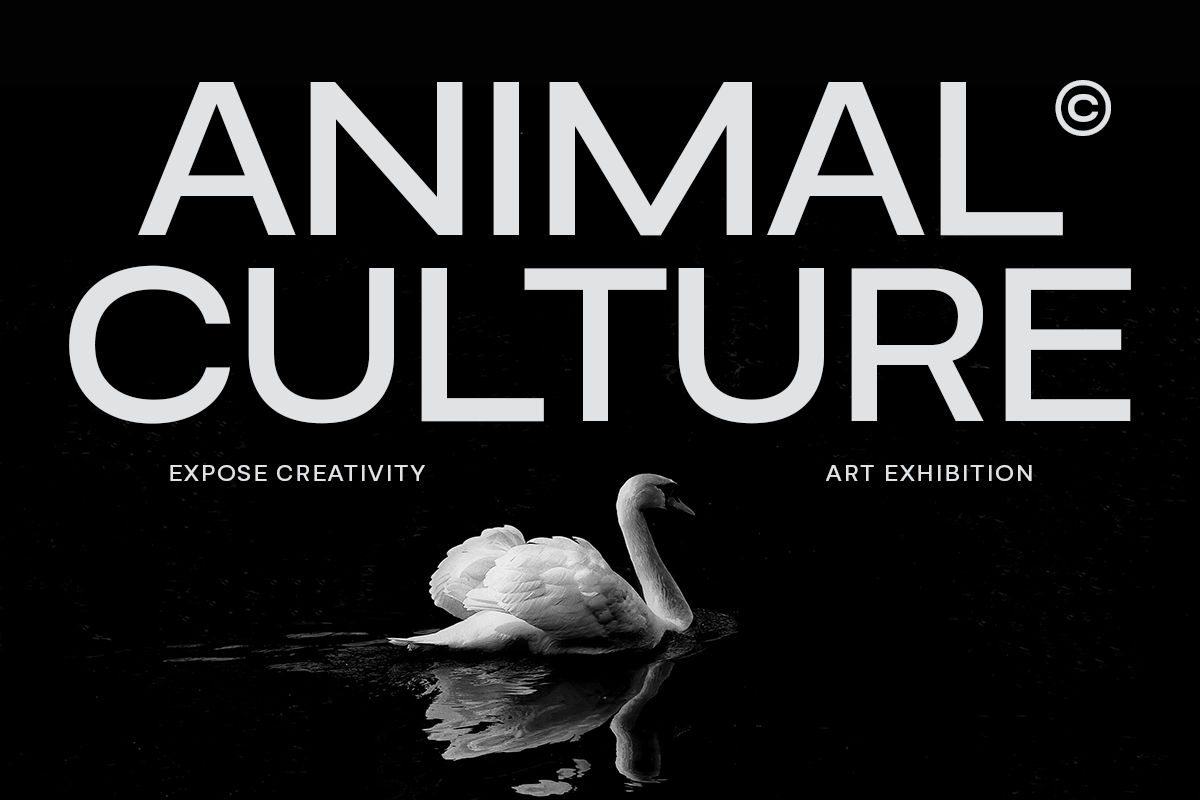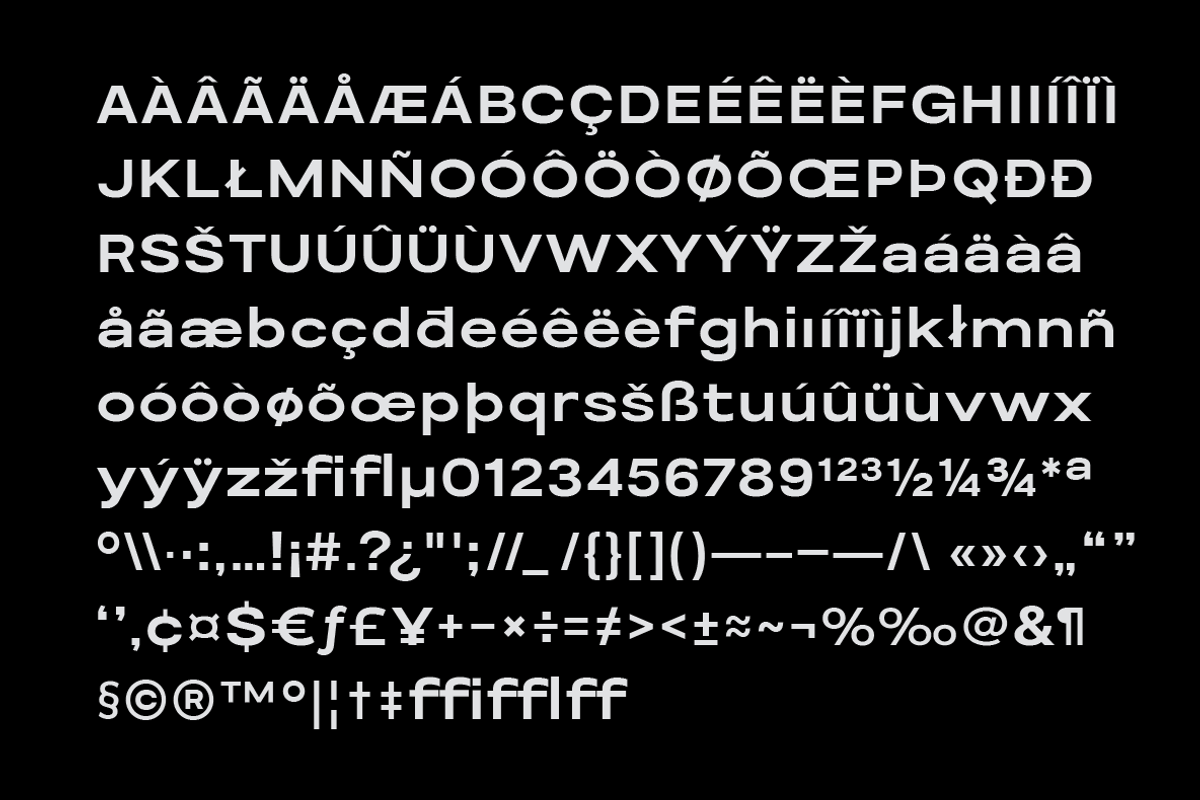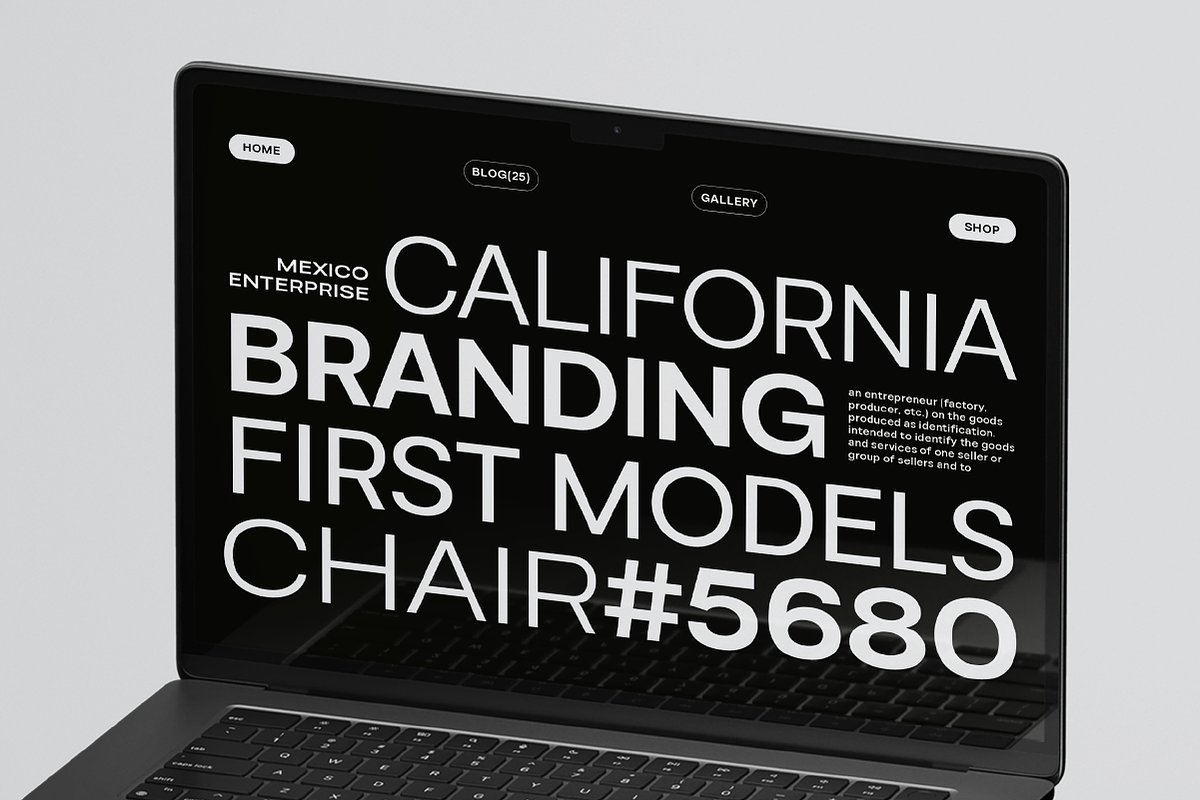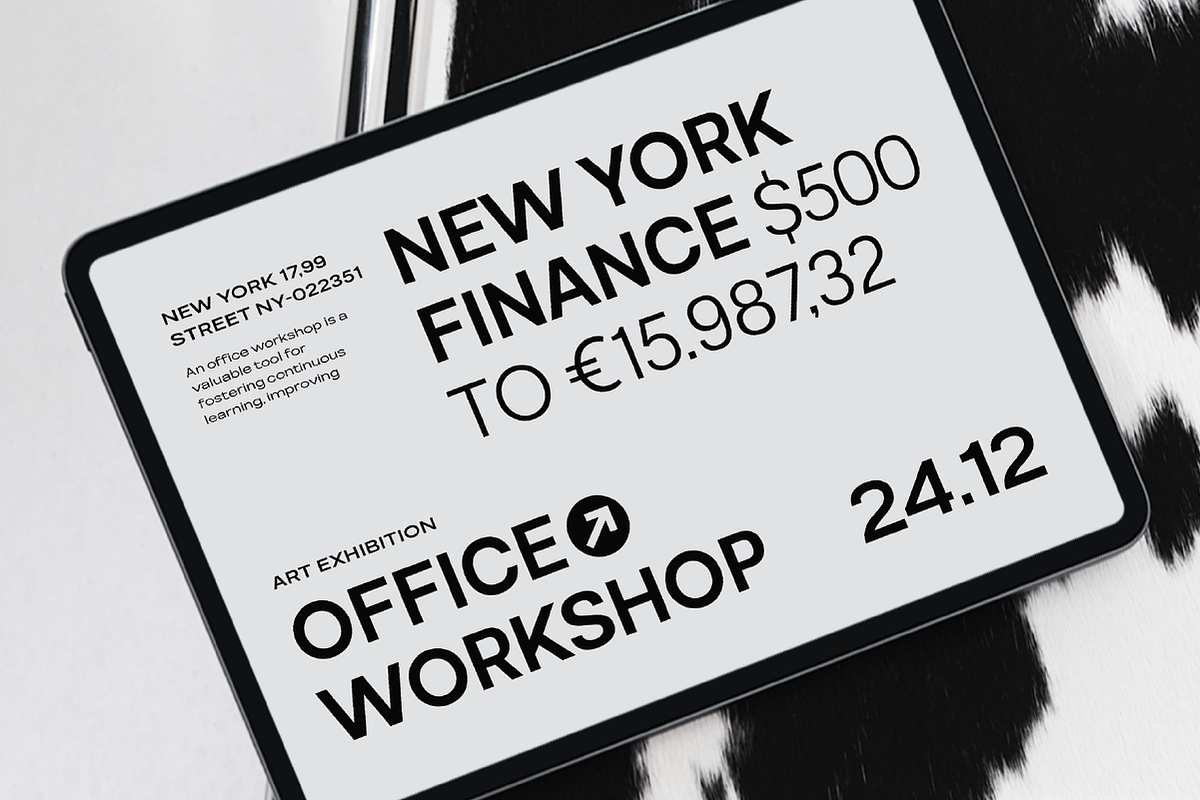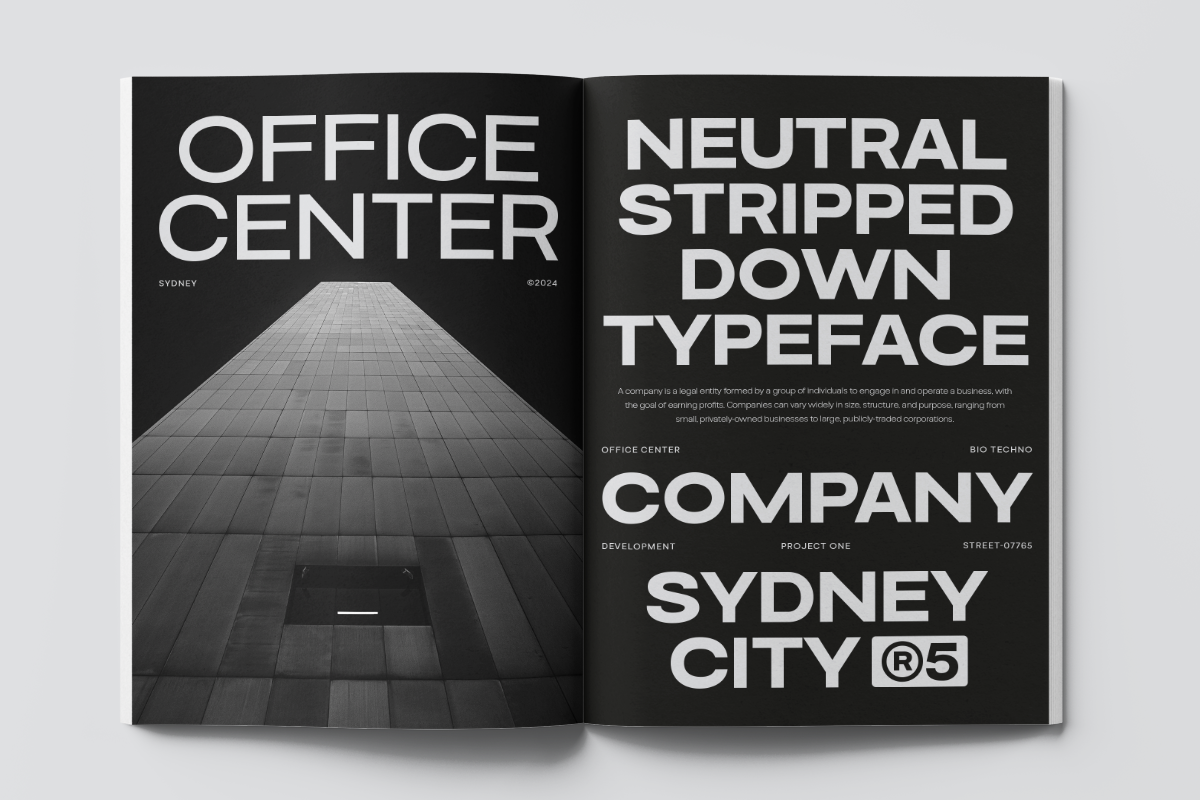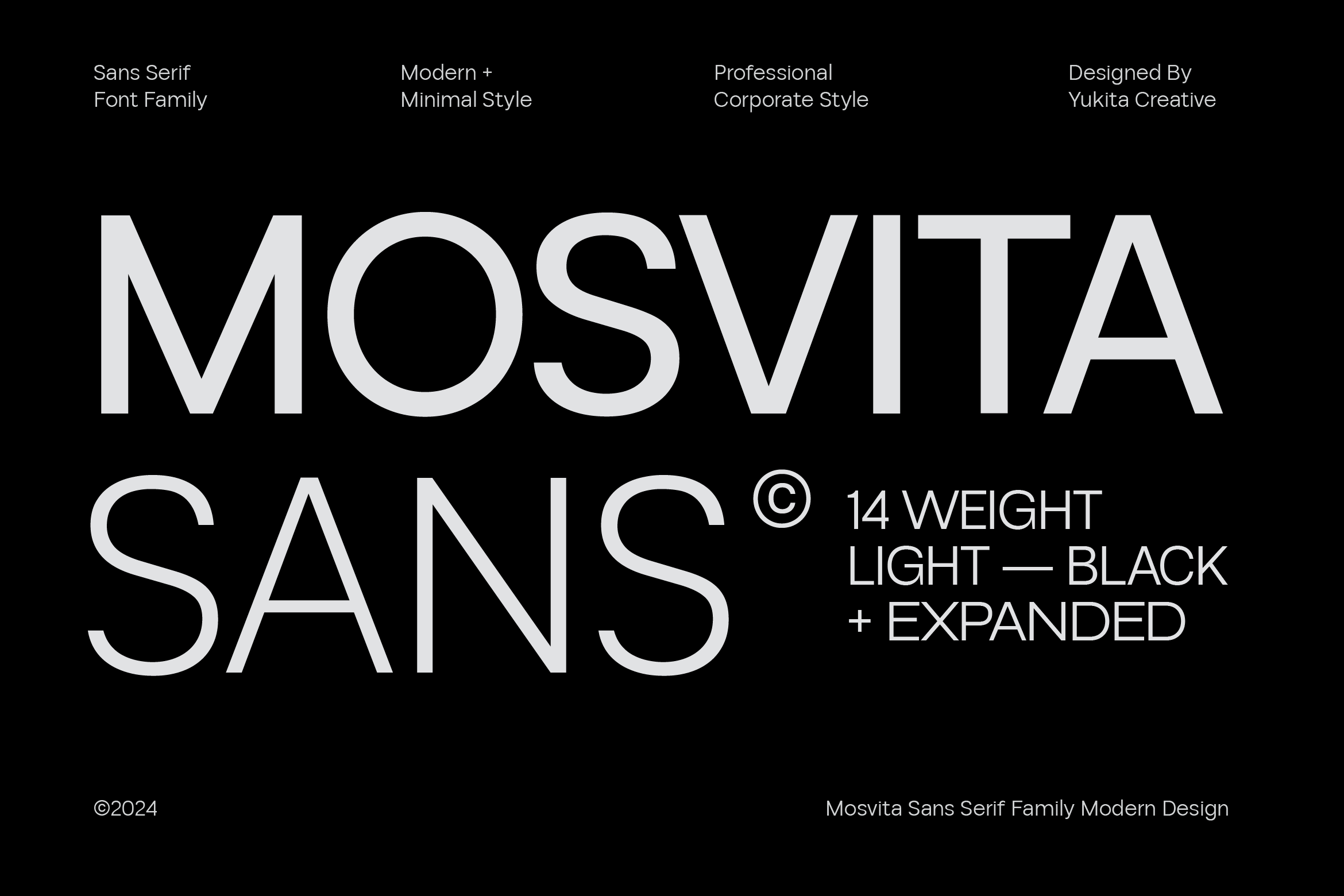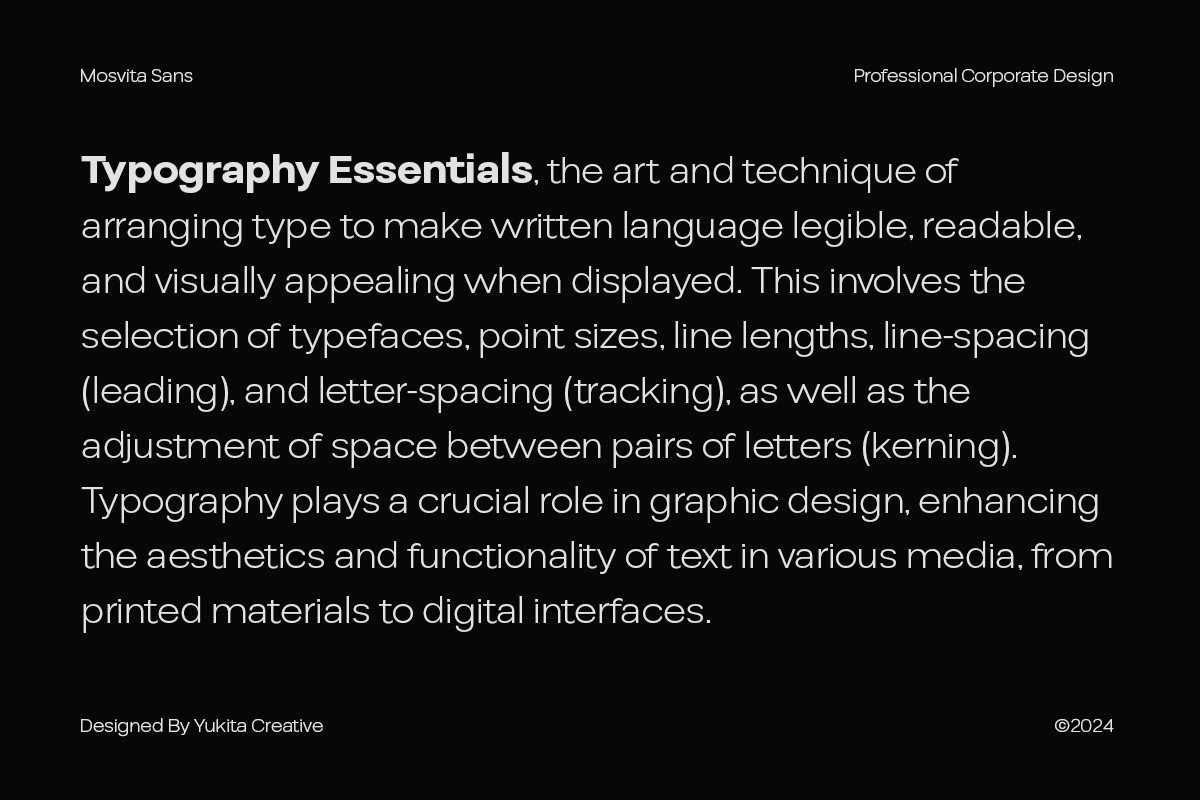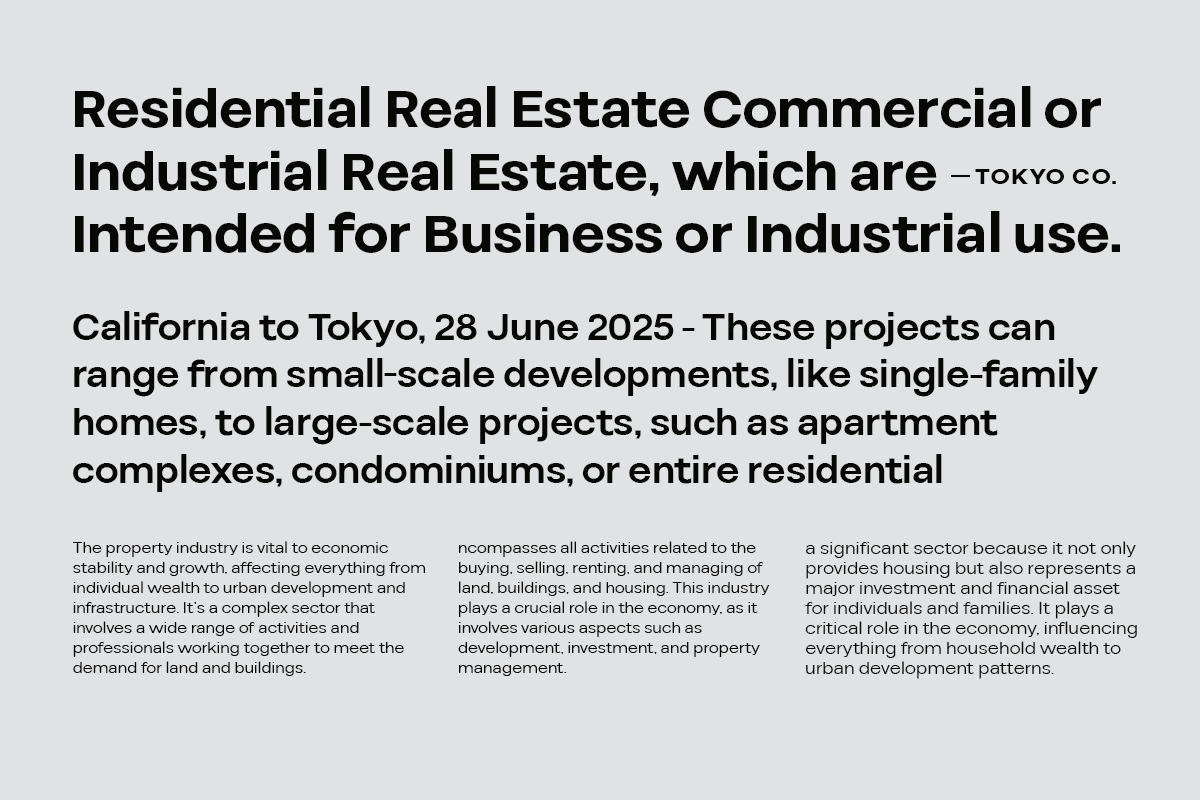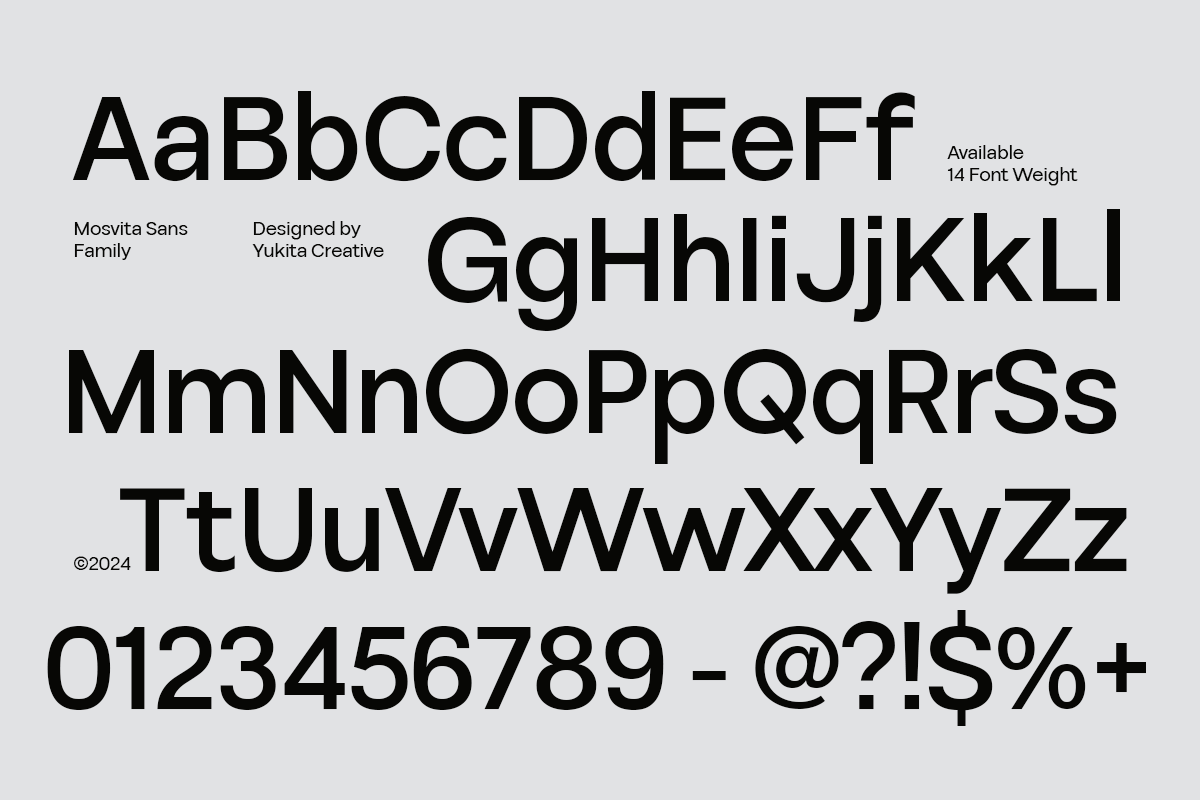
Mosvita Sans Serif Family Font
Mosvita Sans Serif Modern is a font designed with contemporary beauty and readability as top priorities. It offers incredible flexibility with 14 styles, consisting of 7 normal widths and 7 expanded widths, making it a perfect choice for a variety of design projects. Features:
- Clean, Modern Design
- Easy to Read
- 14 Styles in 2 Widths
- Versatile
- High Quality
Why Choose Mosvita Sans Serif Modern?
- Professional and Elegant: Provides a professional look with a touch of elegance.
- Flexibility: Makes it easy to create visual hierarchy with 14 available styles.
Suitable for:
- Branding: Provides a strong, modern visual identity.
- Editorial Design: Provides readability and an attractive aesthetic for magazines, brochures, and other publications.
- Digital Design: Ideal for clean, easy-to-navigate user interfaces.
- Presentations: Adds a professional, elegant feel to business and creative presentations.
- Posters and Advertisements: Stands out with a bold, easy-to-read look.